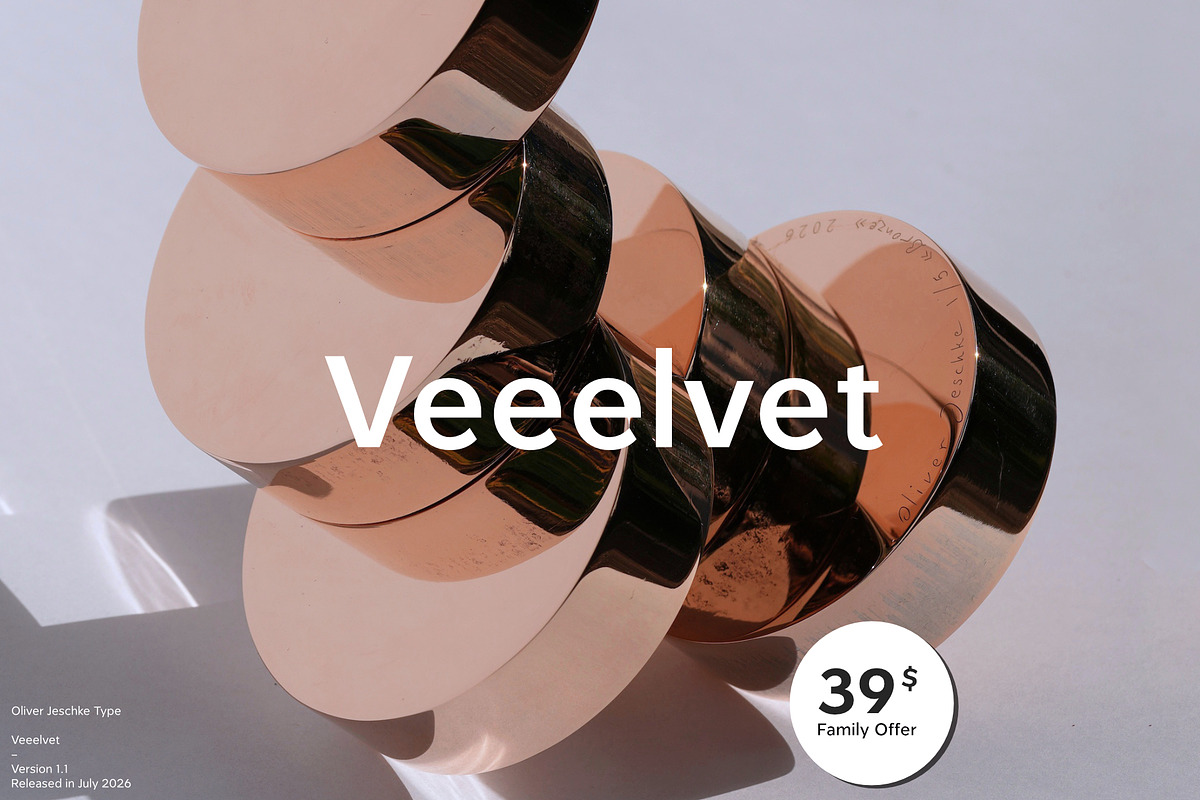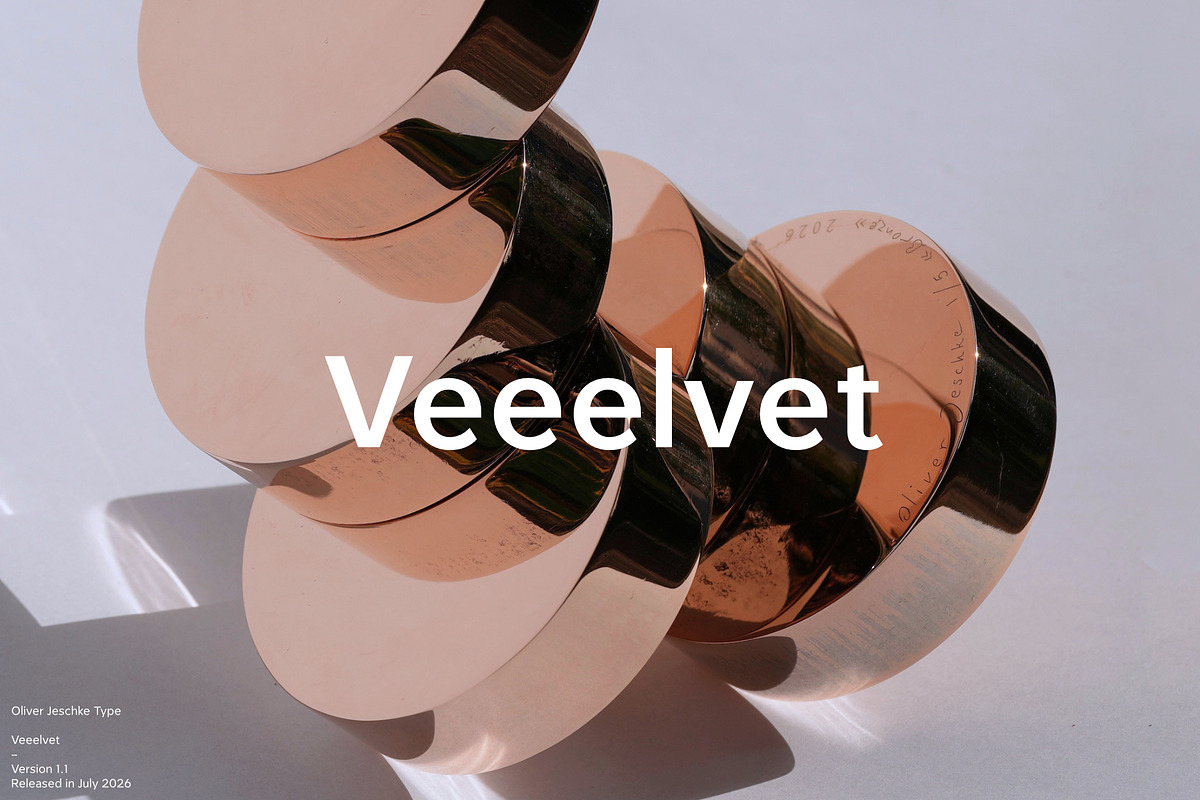
Veeelvet
With its precise proportions and timeless character, Veeelvet brings modern elegance to every composition. A versatile typeface family created for both expressive headlines and sophisticated visual systems.
Oliver Jeschke Type Released in 2026